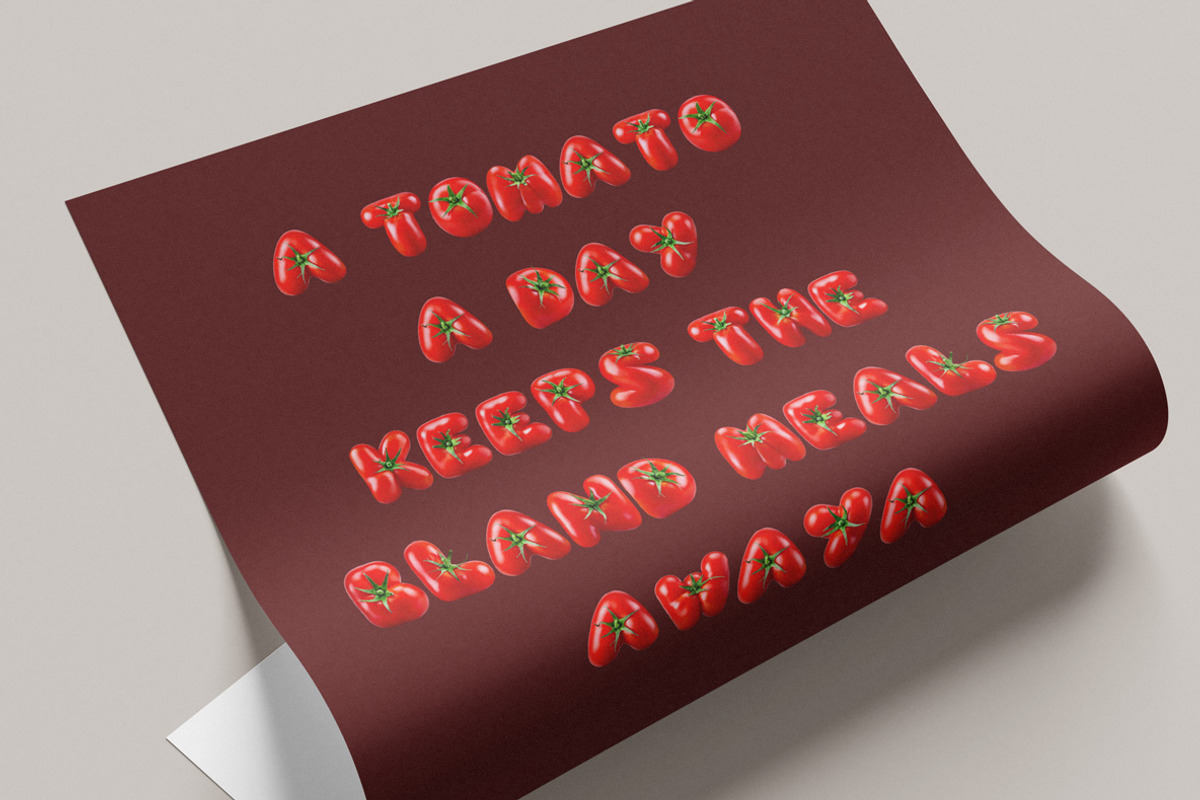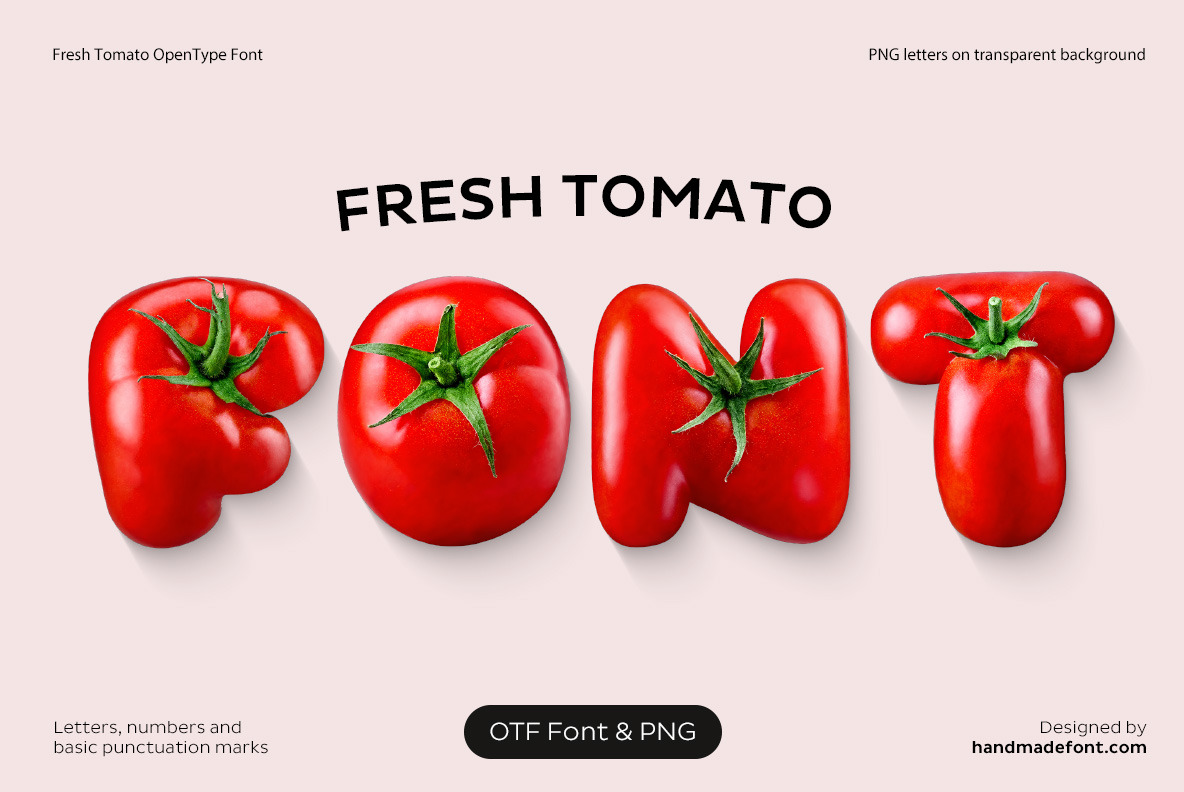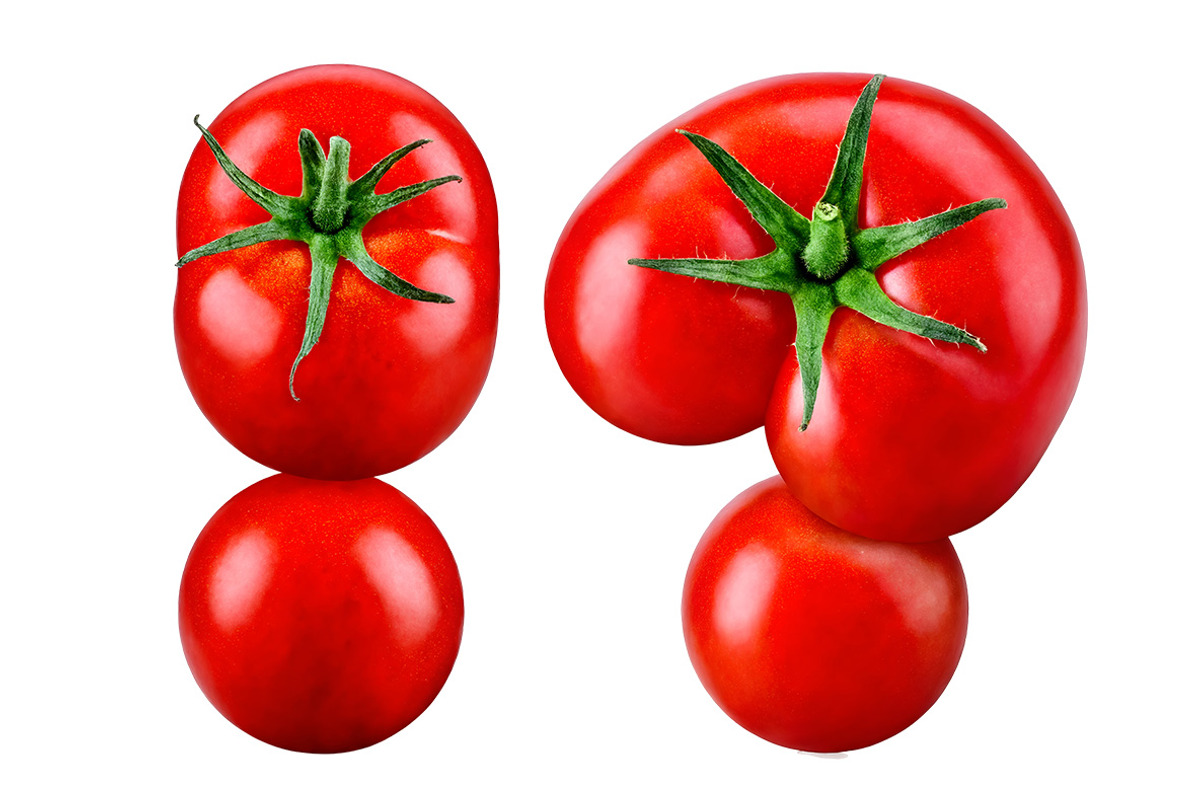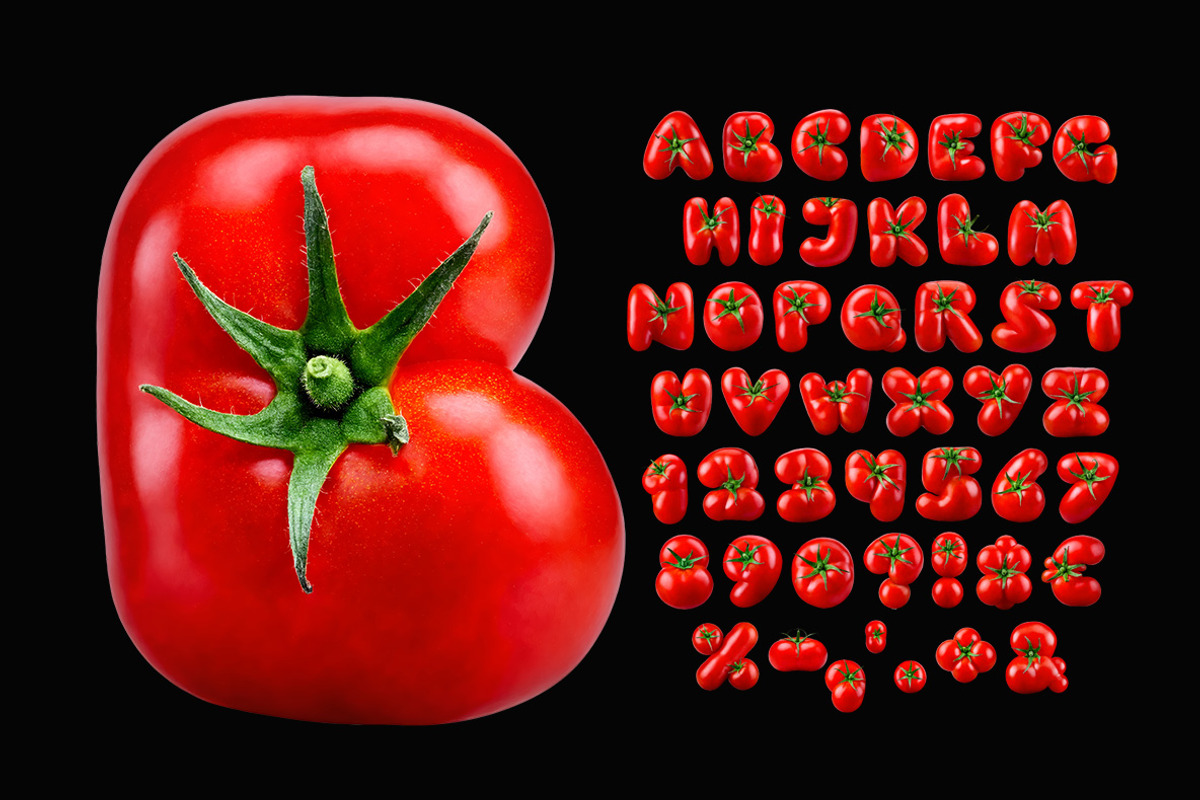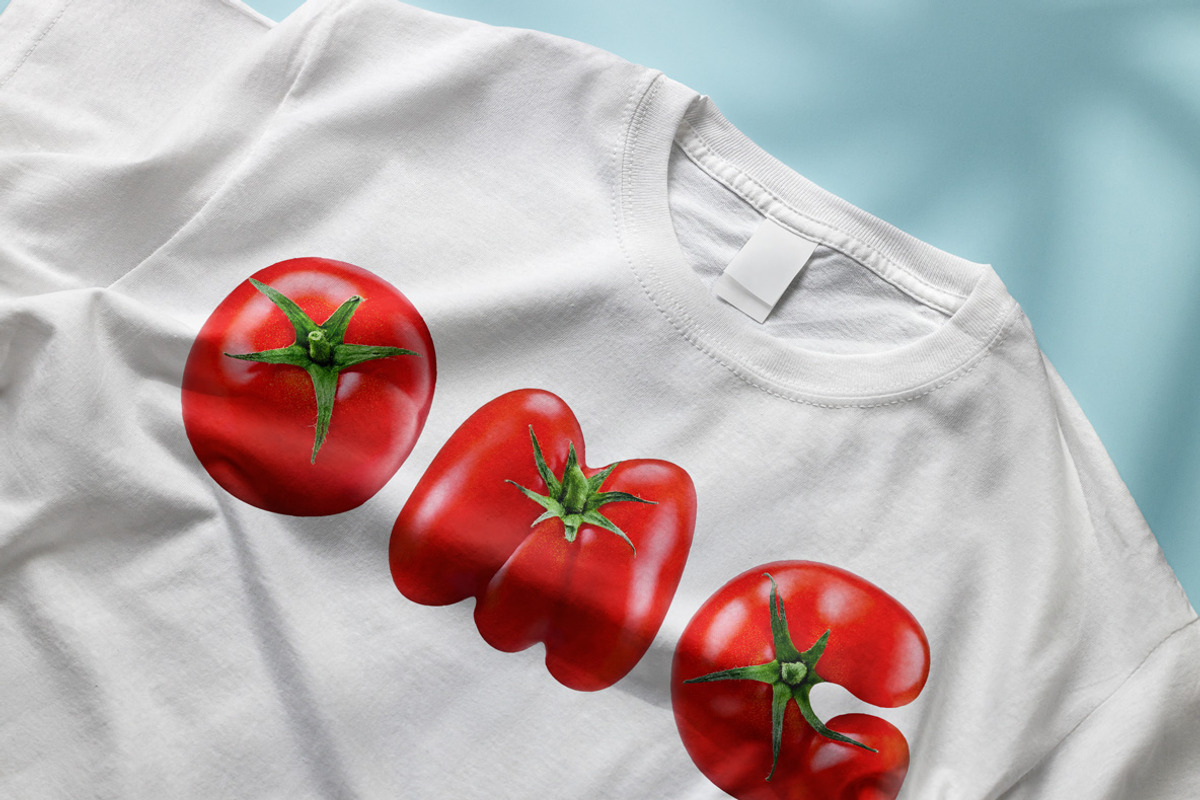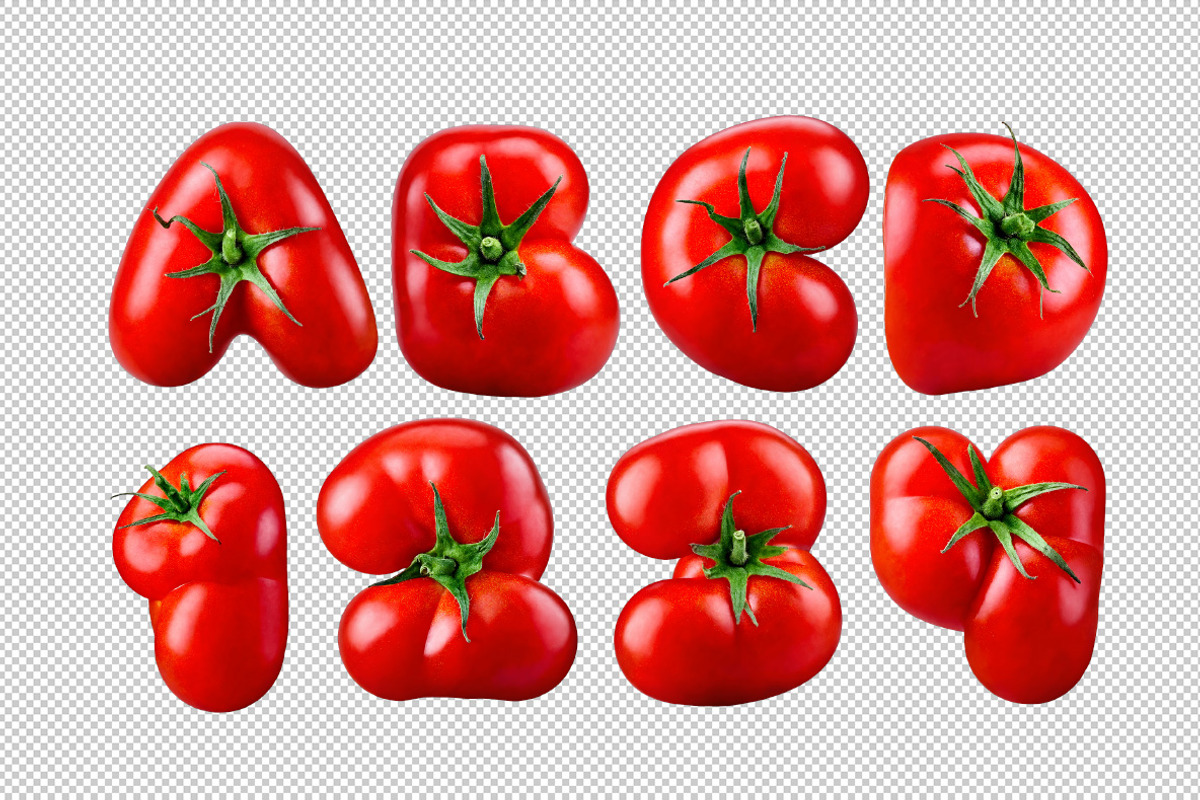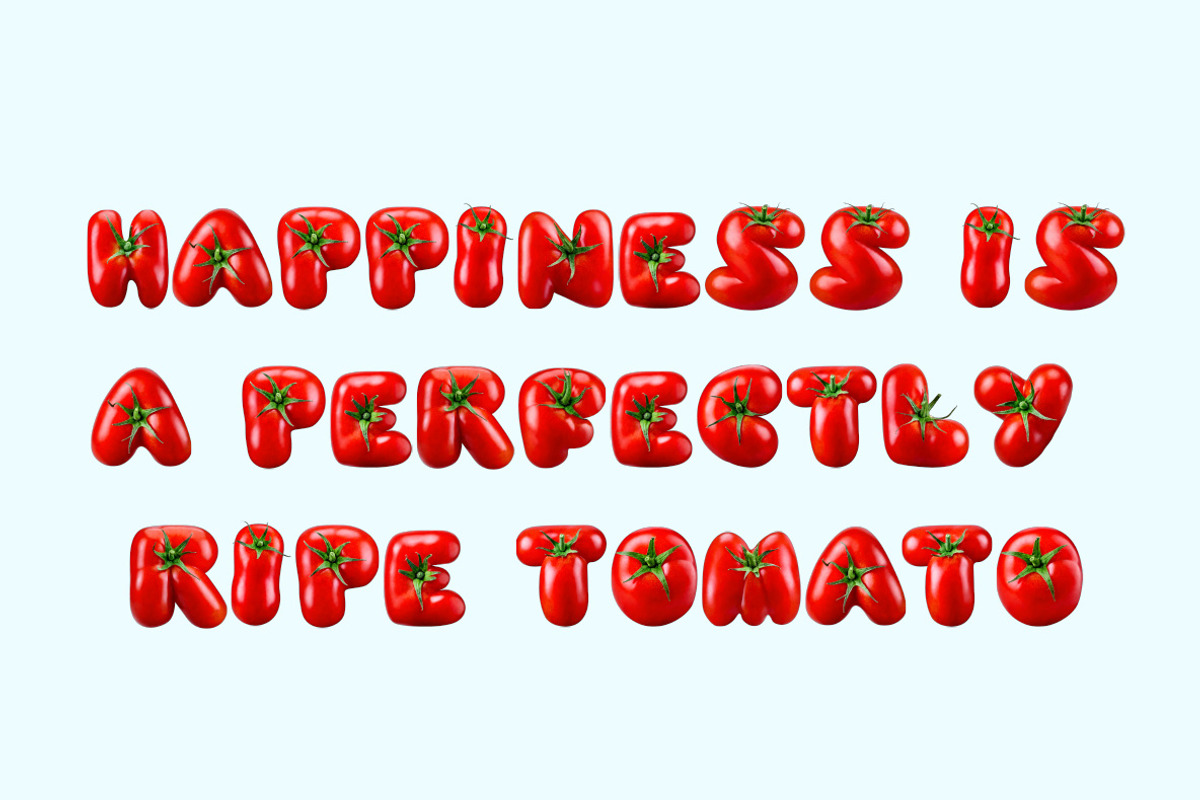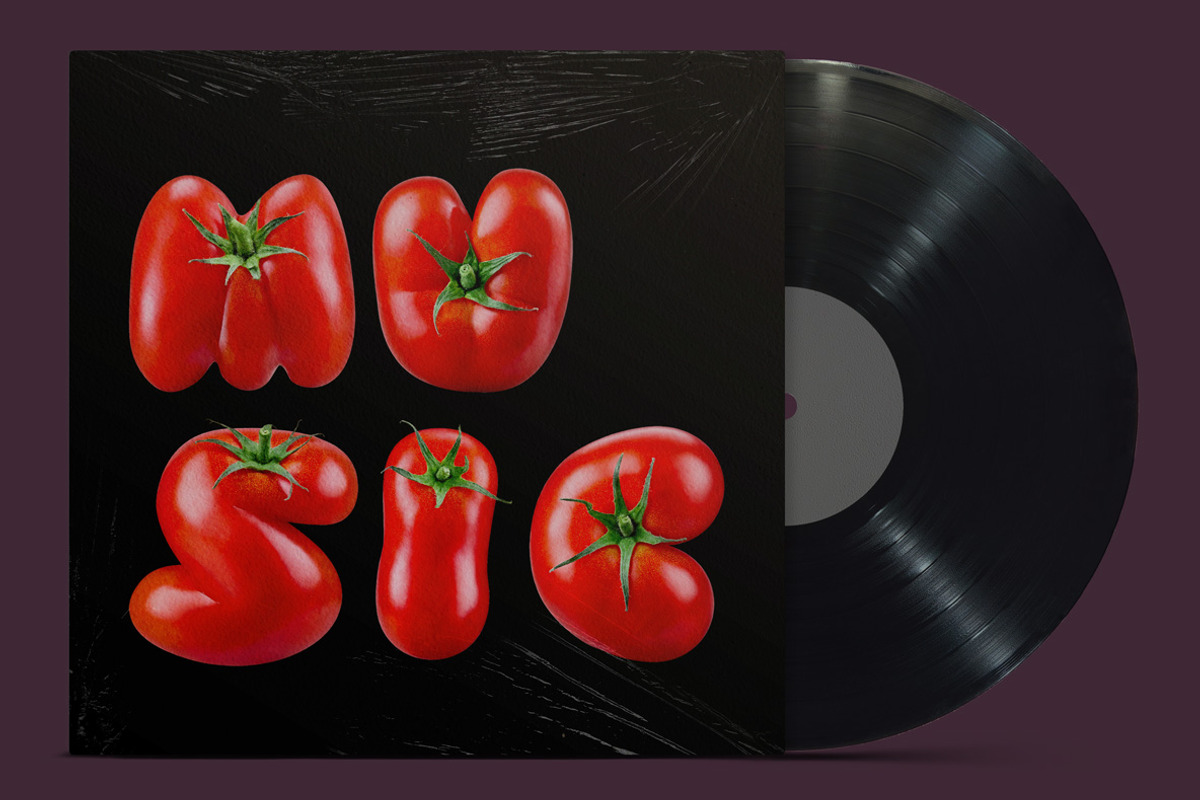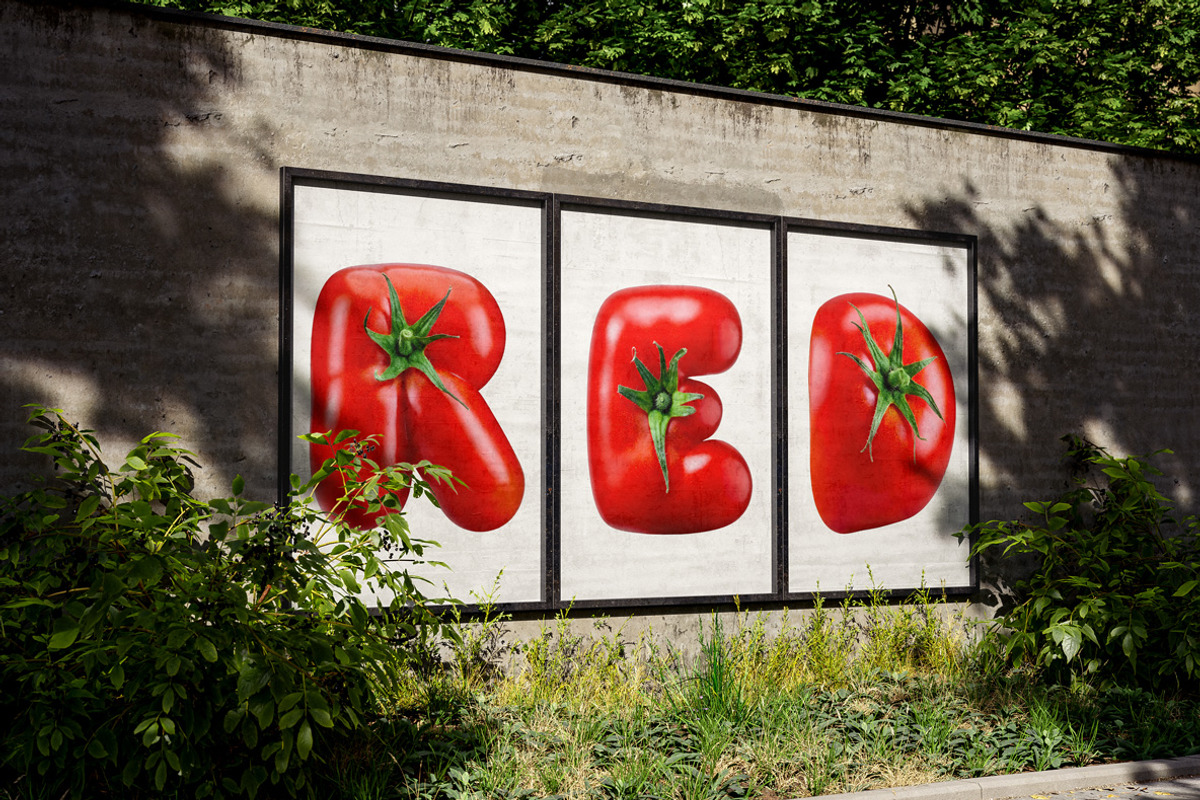
Fresh Tomato Font
Try the juicy and vibrant Tomato Font, where each letter is crafted entirely from fresh, red tomatoes! This playful and creative typeface brings the essence of ripe tomatoes to life, perfect for food-themed designs, organic branding, or fun projects. Whether you're designing a menu, a poster, or a quirky social media post, this tomato-inspired alphabet adds a splash of freshness and charm. Let your creativity grow with the bold and delicious appeal of Tomato Font!
A high definition OpenType Font. Contains uppercase characters, numerals and basic punctuation. (Draw height roughly 800 pixels). All letters and glyphs that comprises this font you can see on the preview.
- Letters : A B C D E F G H I J K L M N O P Q R S T U V W X Y Z
- Numbers : 0 1 2 3 4 5 6 7 8 9
- Others : ! ? - . ' $ € % &